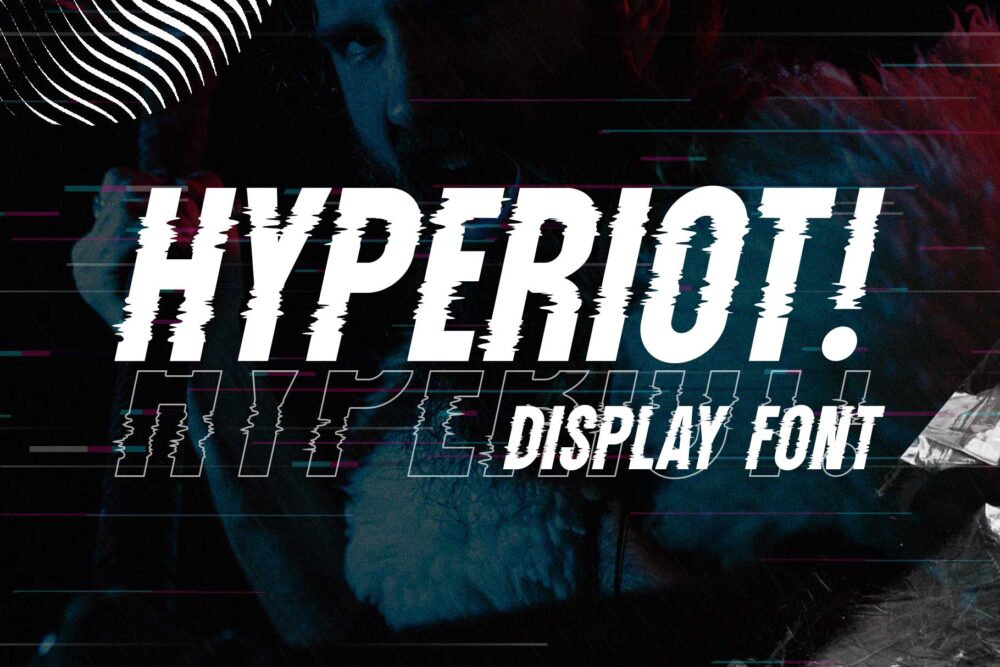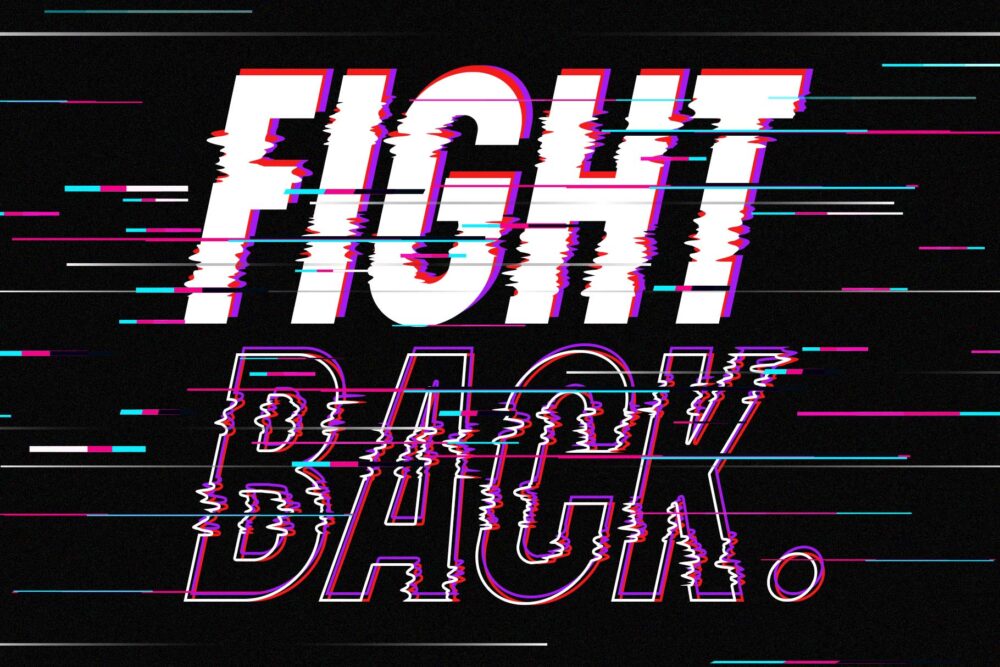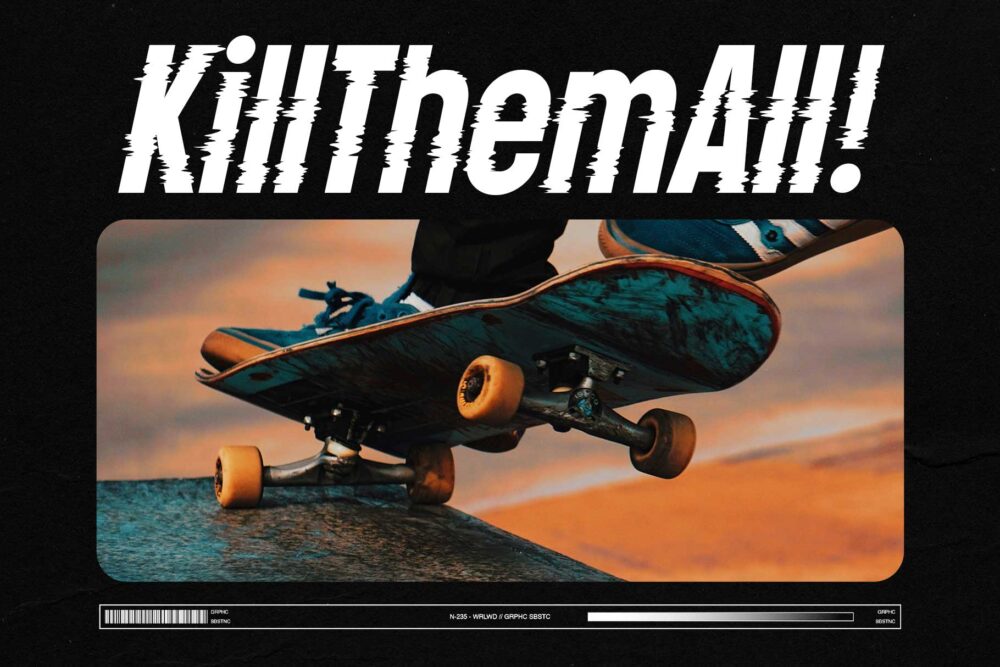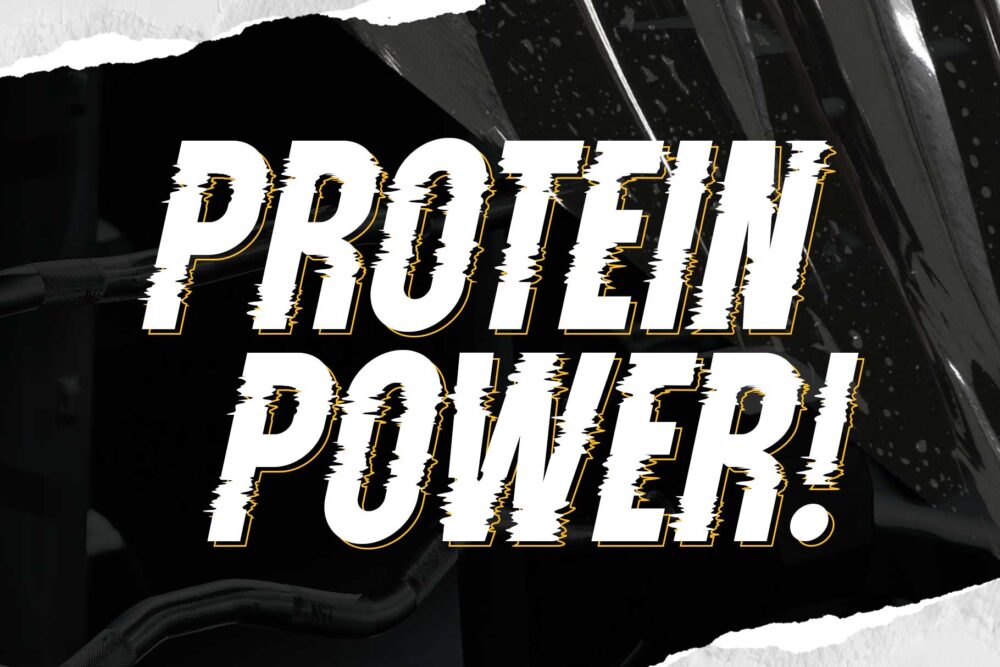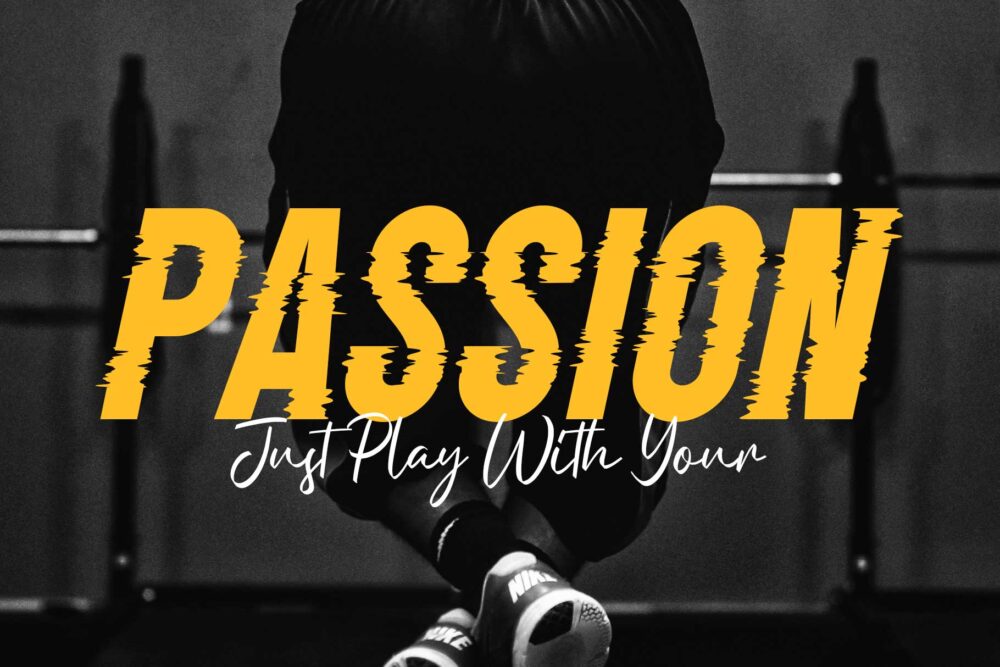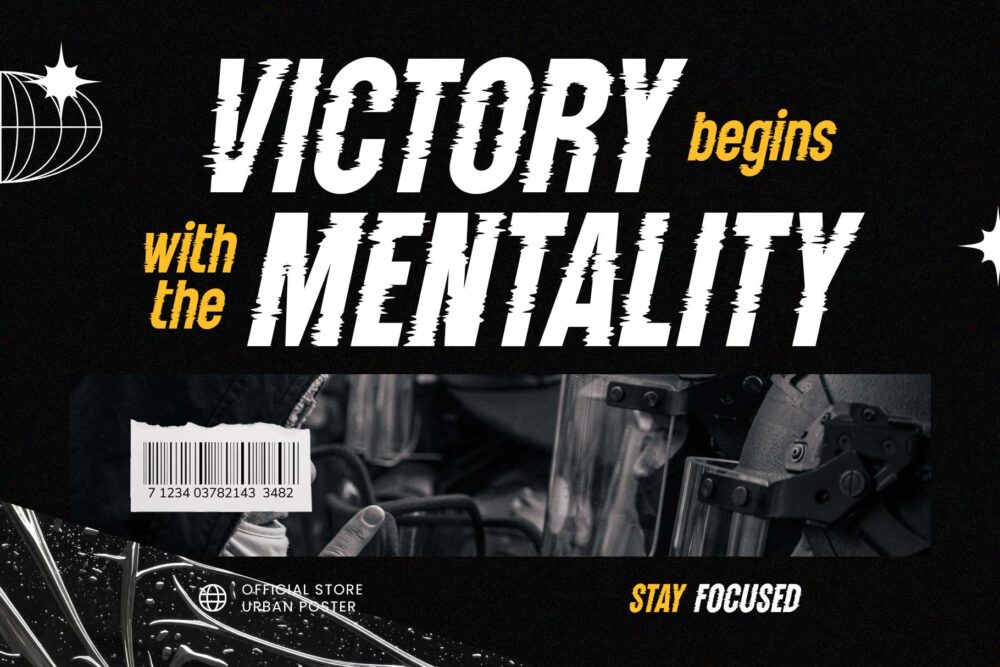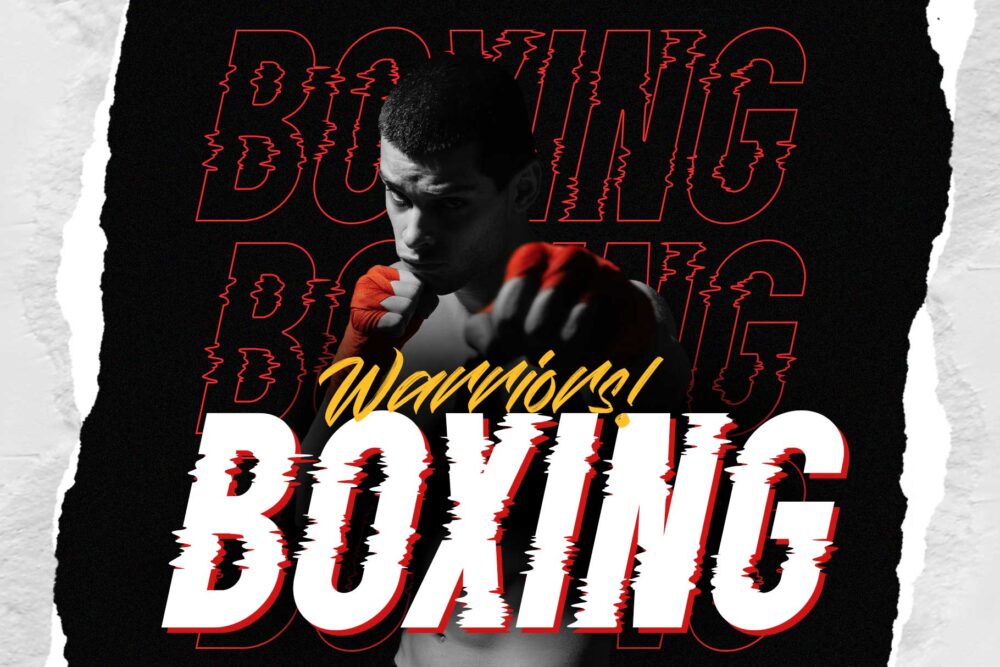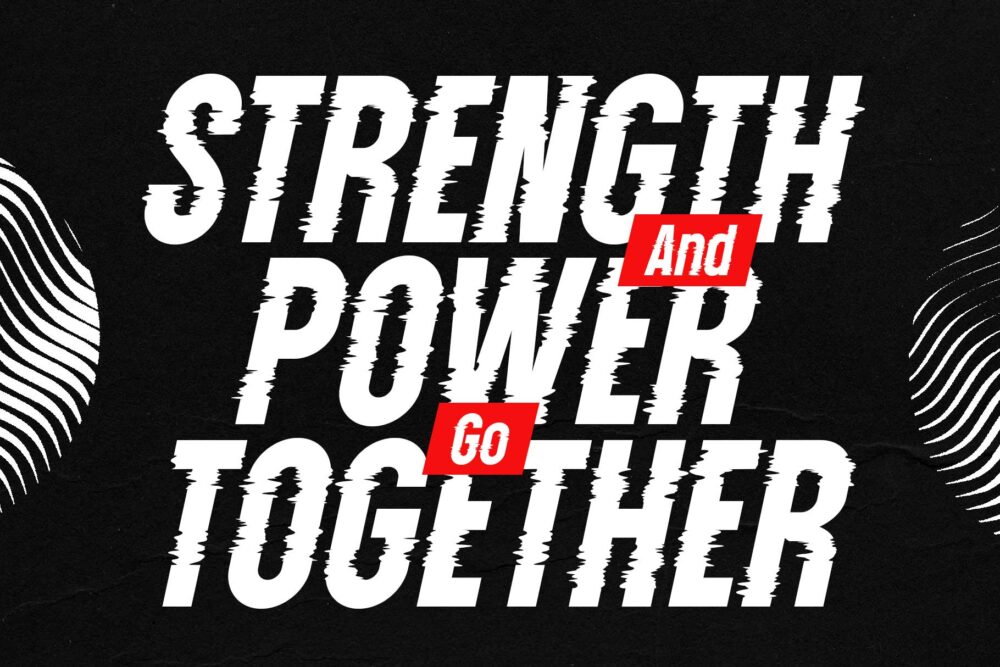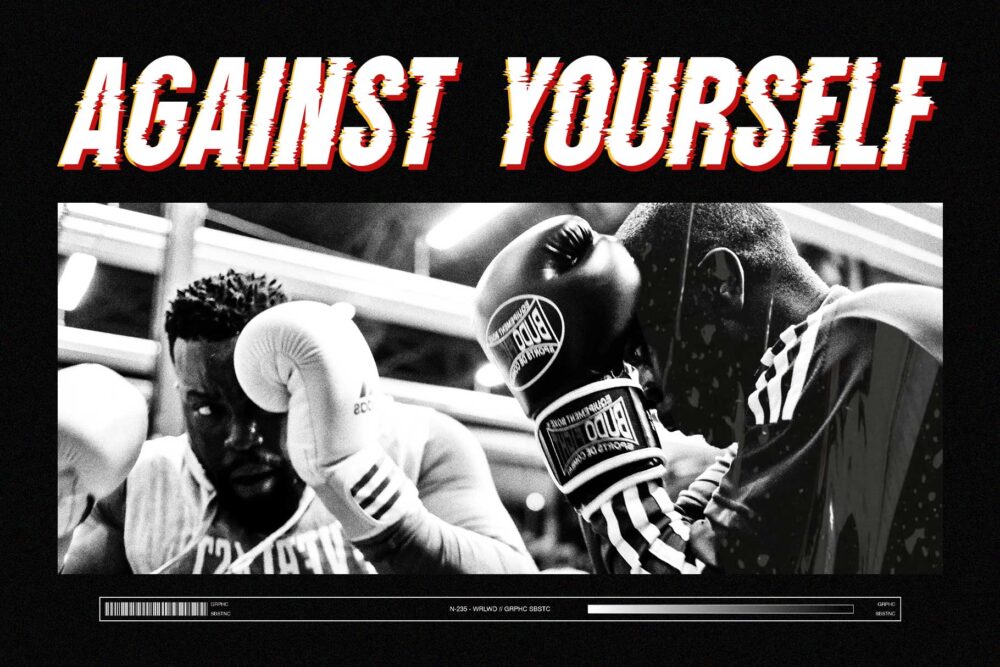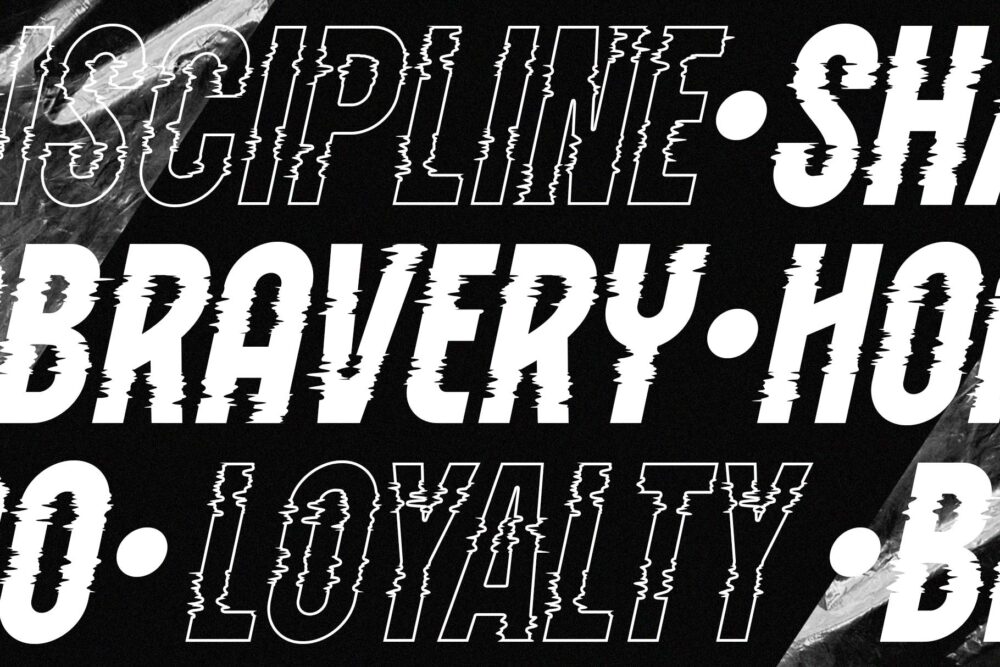
Introducing Hyperiot, an experimental condensed font that draws inspiration from brutalism and glitch styles. This unique typeface is designed with a randomized glitch effect, creating a uniqueness and attention-grabbing aesthetic, making it perfect for your design projects in various themes such as digital, sports, techno, futuristic, or urban style.
Hyperiot comes with special characters that enable you to create typography variations effortlessly, and it also supports multiple languages. It’s the ideal choice for headlines, posters, logos, websites, social media, apparel, quotes, packaging, and more.